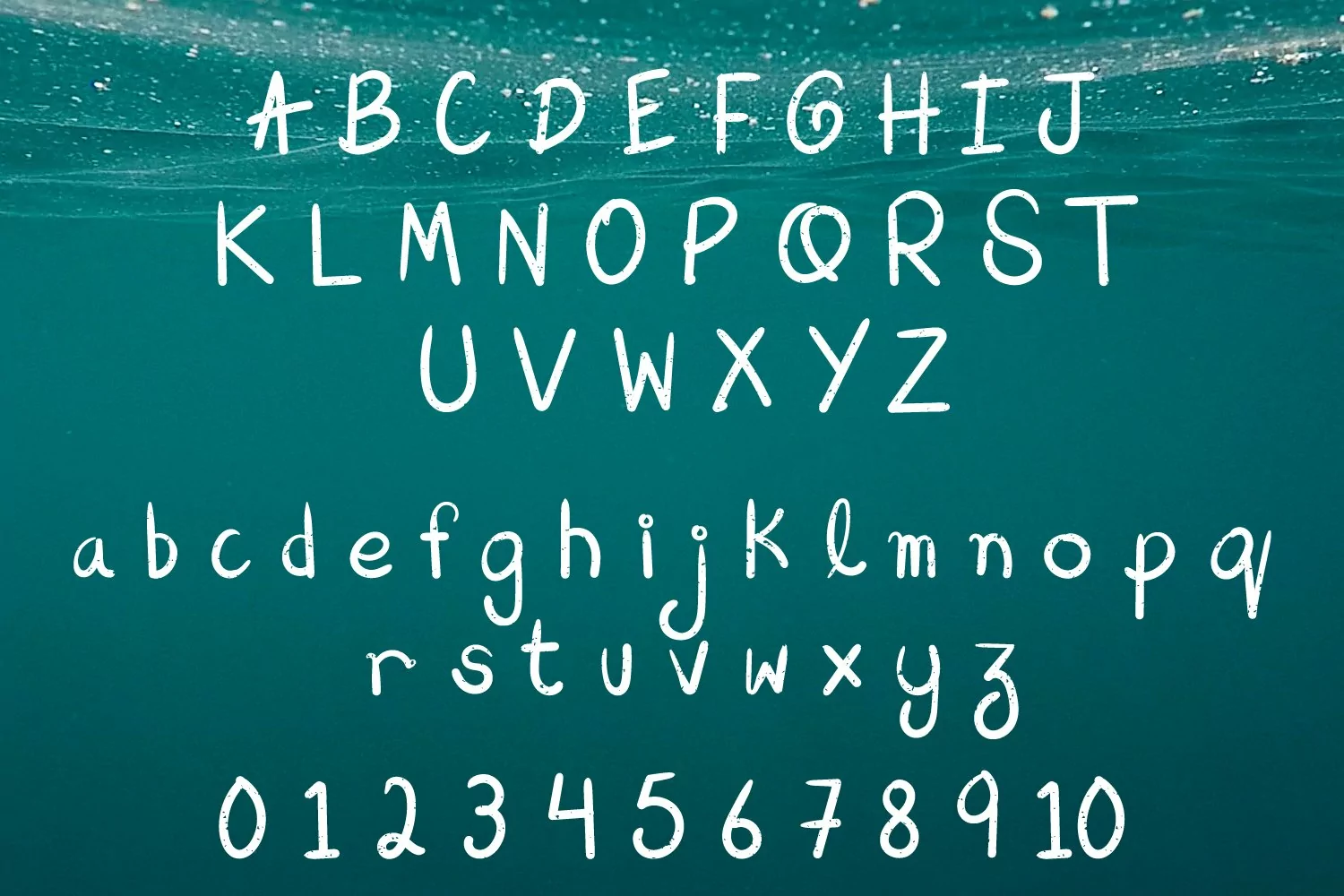
Aqua Beach - Hand Drawn Grunge Font
Combination of Grunge and Hand drawn design this font is just made for you. You can create vintage designs, retro logo, retro designs and even more. This is one of the best font for the user looking for creative typo for their graphics.